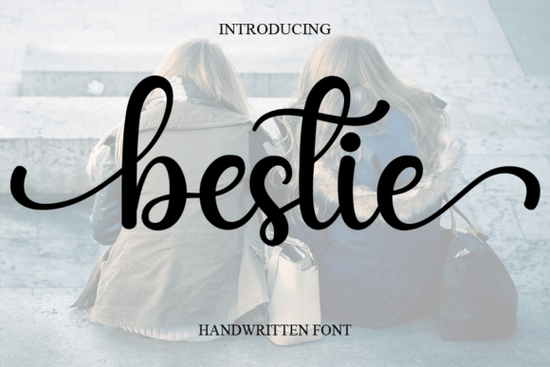
If you're looking for a font that feels warm and personal like a handwritten note from a close friend Bestie Font might be just what your next project needs. It’s a soft, flowing script with a gentle cursive style that adds charm without overwhelming your design. Whether you’re creating wedding invitations, branding materials, or simple greeting cards, this font brings a light, romantic touch that fits naturally into many creative spaces.
What kind of projects works best with Bestie Font?
Bestie Font shines in designs where a personal, heartfelt tone matters. Its smooth curves and relaxed flow make it perfect for:
- Wedding stationery – Save the dates, invitation suites, and thank-you cards feel more intimate with this handwriting-style type.
- Branding and logos – Small businesses and boutiques can use it to give their brand a friendly, approachable personality.
- Greeting cards and gift tags – Handwritten elegance without the effort of actually writing by hand.
- Fashion lookbooks and print-on-demand items – Adds a stylish yet casual vibe to T-shirt graphics, tote bags, or packaging.
- Marketing promotions – Social media posts, flyers, or email headers that want to feel inviting rather than formal.
You’ll find that Bestie doesn’t scream for attention it quietly enhances your message. That makes it ideal when you want something elegant but not too flashy. It pairs well with clean backgrounds and minimal layouts, letting the font take center stage without competing with other elements.
How does Bestie Font compare to similar script fonts?
While many script fonts lean toward dramatic or ornate styles, Bestie stays grounded in simplicity. It avoids overly tight spacing or exaggerated flourishes, which keeps it readable even at smaller sizes. Compared to bolder options like Wilson Font or more structured ones like Melody Font, Bestie leans into softness and warmth. If you’ve tried Cruise Font and found it a bit too bold, or Belahgio Font too decorative, Bestie sits right in the sweet spot for everyday elegance.
For inspiration, check out real-world examples from other creators who’ve used it in wedding invites, business cards, and social media content. You’ll notice how its natural rhythm gives each piece a handmade feel even if it’s all done digitally.
If you love fonts that feel human and sincere, yes. It’s not about being flashy it’s about feeling right. Whether you’re crafting a birthday card for a friend, building a brand identity, or designing a product for sale, Bestie Font helps you communicate warmth and care with ease.